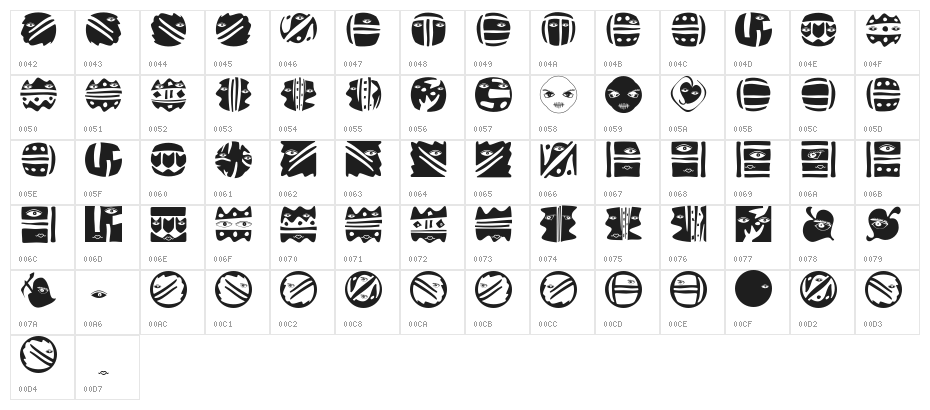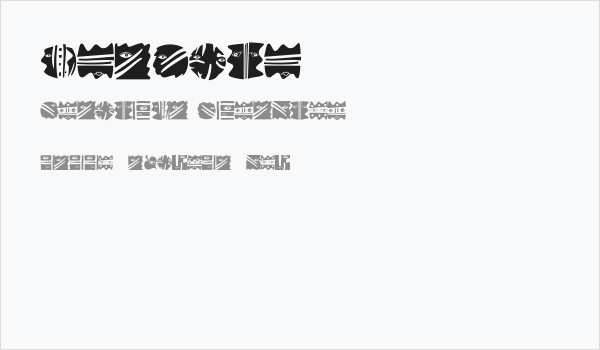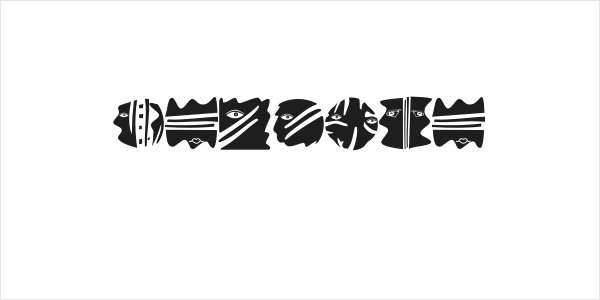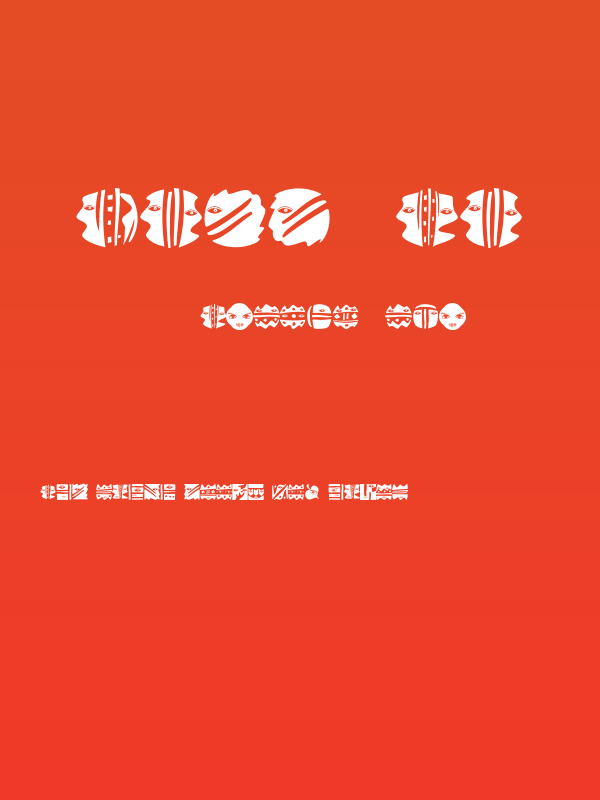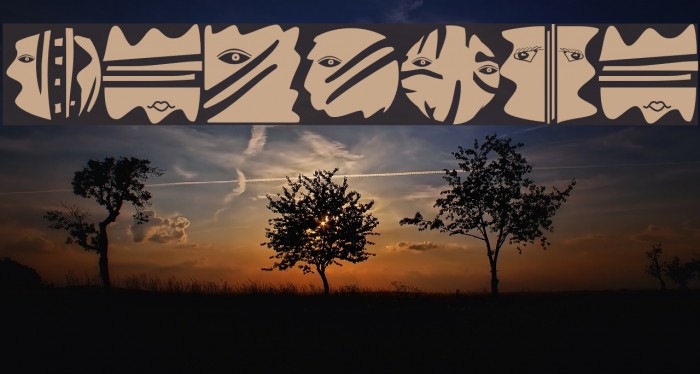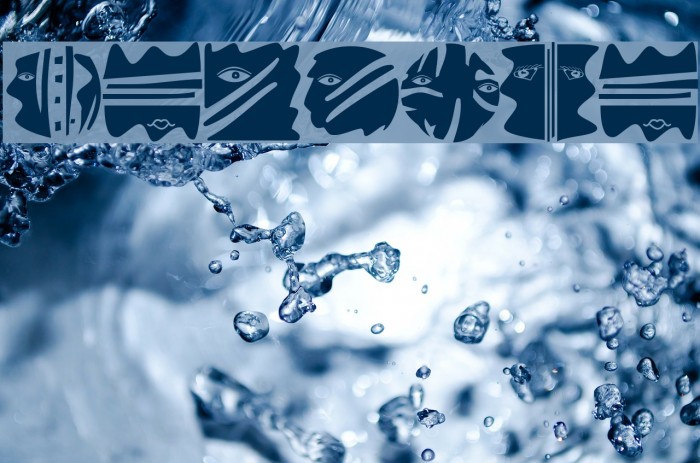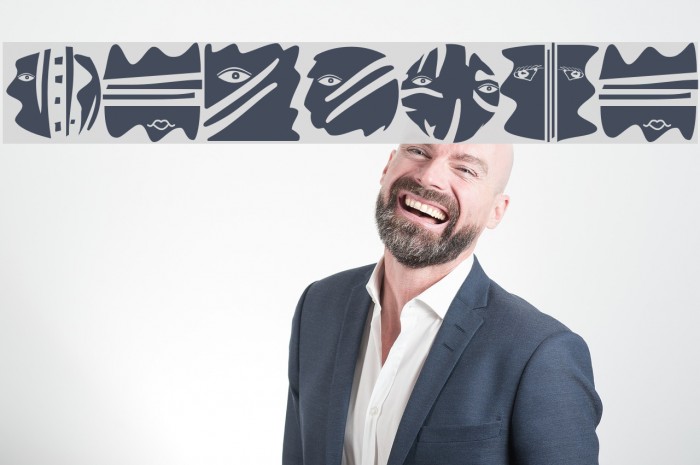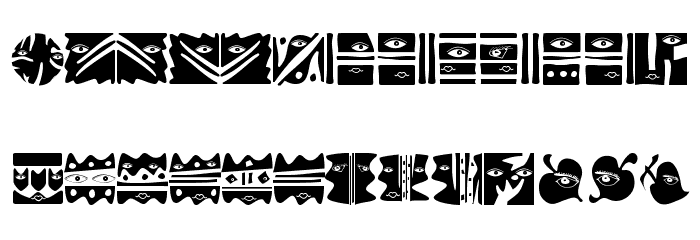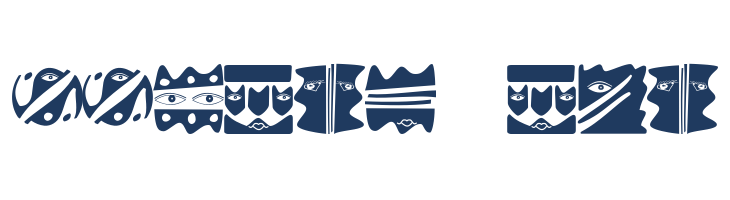
UseBats Font
UseBats Description
This font features a highly decorative and abstract design, with each character resembling a unique mask or tribal motif. The intricate patterns and bold shapes create a striking visual impact, making it ideal for artistic and creative projects. The characters are filled with detailed elements such as eyes, lines, and geometric shapes, giving them a mysterious and enigmatic appearance. The overall style is reminiscent of tribal art, with a modern twist that adds to its uniqueness. This font is perfect for projects that require a bold and unconventional aesthetic.
| Proposed Projects | Ideal for artistic posters, album covers, cultural event flyers, and creative branding. |